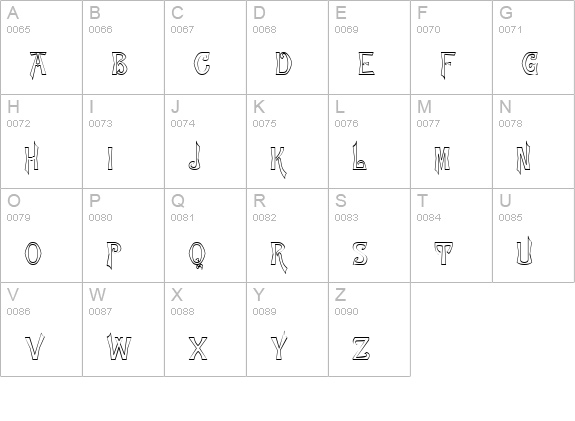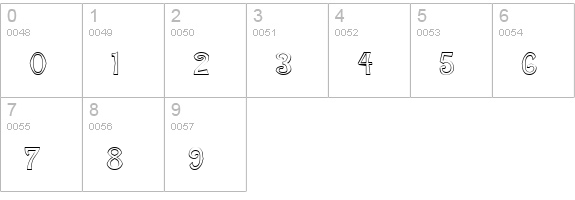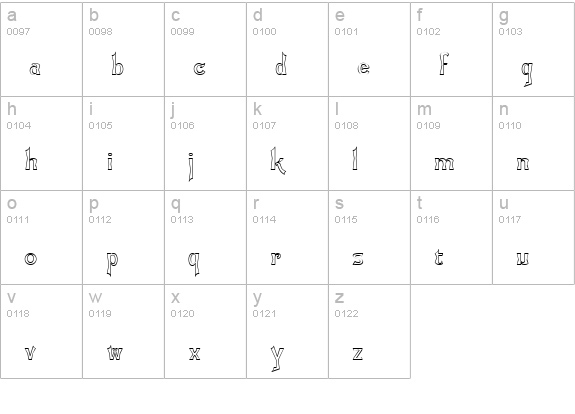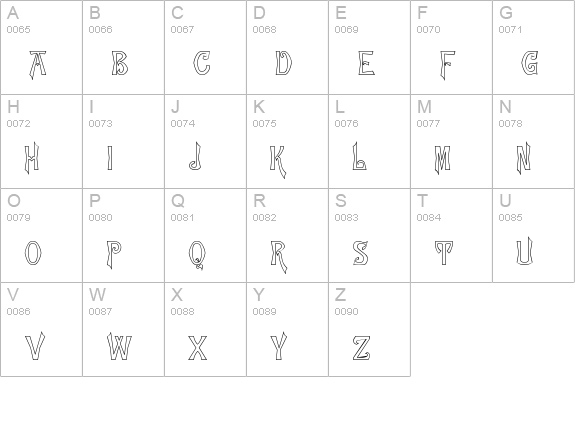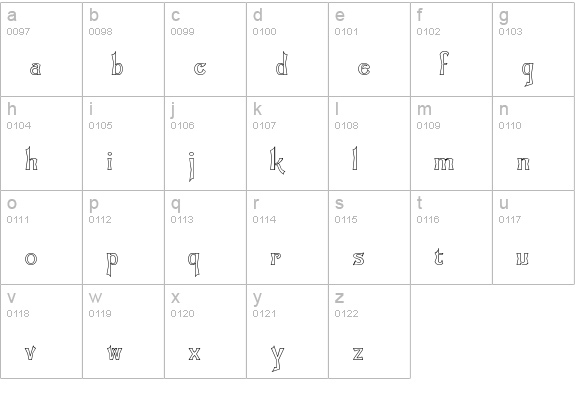
TelepathOpen Font Details
Introducing TelepathOpen font, a modern and sleek typeface that seamlessly combines elegance with readability. With its clean lines and contemporary design, TelepathOpen is perfect for a wide range of design projects, from branding to editorial layouts. This versatile font features a balanced mix of sharp edges and soft curves, creating a harmonious visual appeal that captures attention effortlessly. Whether you're designing a logo, website, or promotional materials, TelepathOpen adds a touch of sophistication to your work. The best part? TelepathOpen is completely free to download at FontsMarket.com. That's right, you can enhance your projects with this stunning font without spending a dime. Don't miss out on the opportunity to elevate your designs with TelepathOpen - download it today and let your creativity shine!